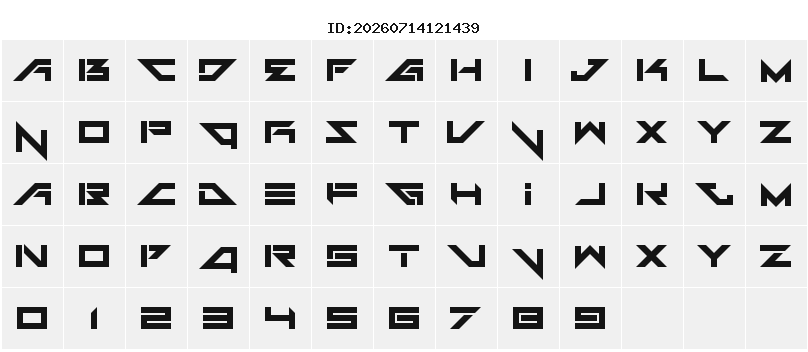
Headshots Preview
• Font Name: Headshots
• Font ID: Headshots:Version 1.00
• Full Font Name: Headshots
• Version: Version 1.00 March 9, 2016, initial release
• PostScript Name: Headshots
• Character Count: 99
• Copyright: Copyright NAL 2012
• Designer: NAL
• Description: “Headshots” was built with FontStruct
About Headshots.otf
Headshots.otf is a modern, elegant sans-serif font designed for ultimate readability and visual harmony. Perfect for branding, headlines, web design, and print materials.